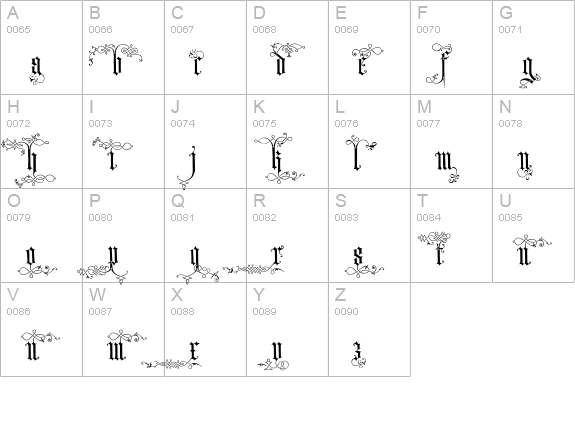
Ardenwood Demo Font Details
Ardenwood Demo font is a stylish and elegant typeface that exudes sophistication and charm. With its delicate curves and intricate details, this font is perfect for projects that require a touch of class. Whether you're designing invitations, logos, or branding materials, Ardenwood Demo will elevate your work to the next level. The best part? Ardenwood Demo font is completely free to download at FontsMarket.com. Simply head over to the website and grab this beautiful typeface for your projects. Don't miss out on the opportunity to add a touch of elegance to your designs with Ardenwood Demo font.